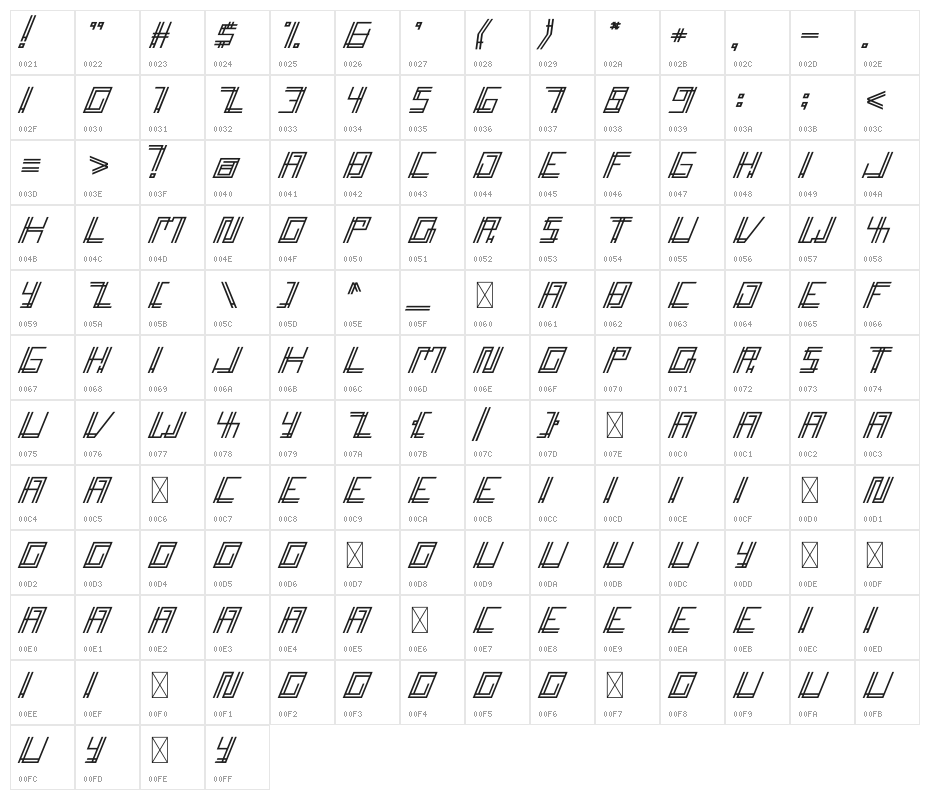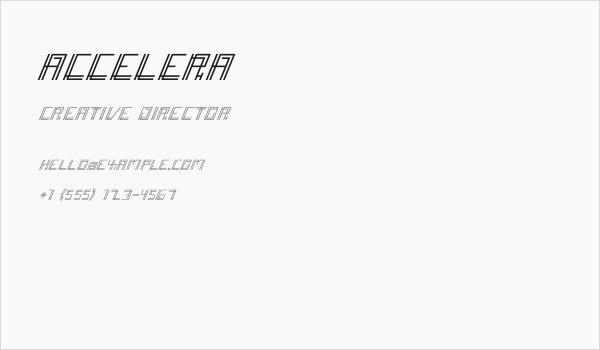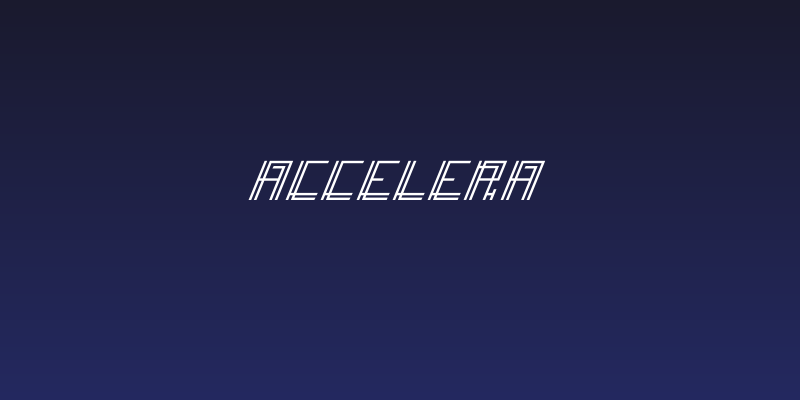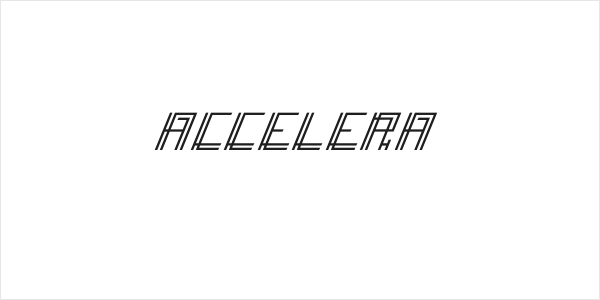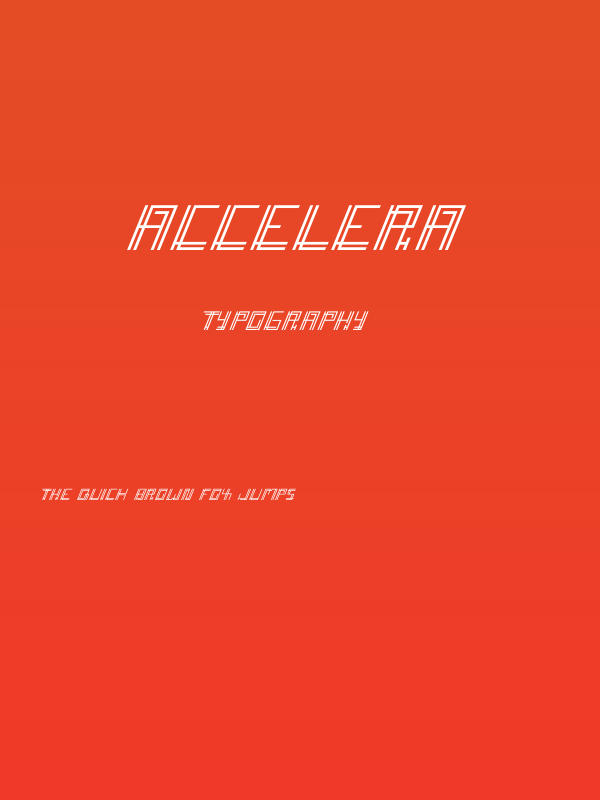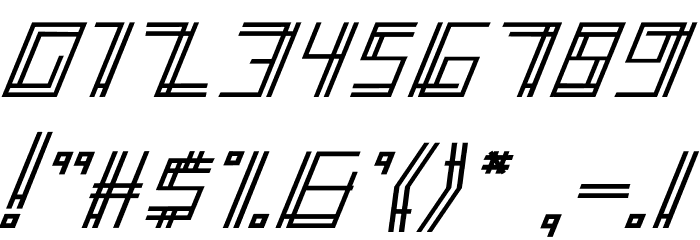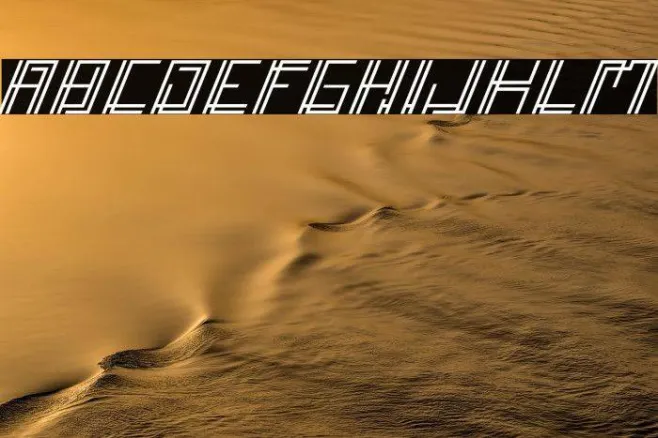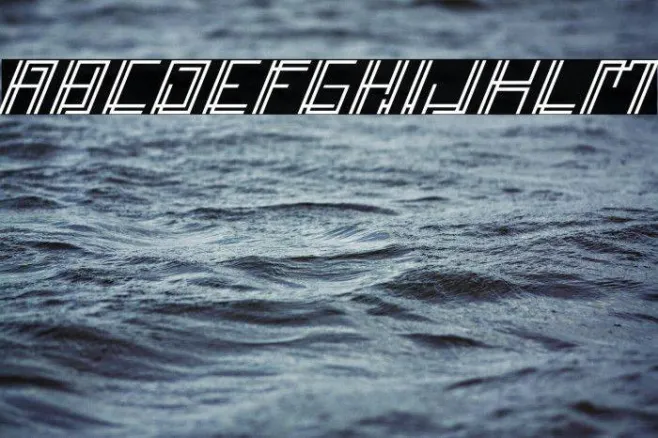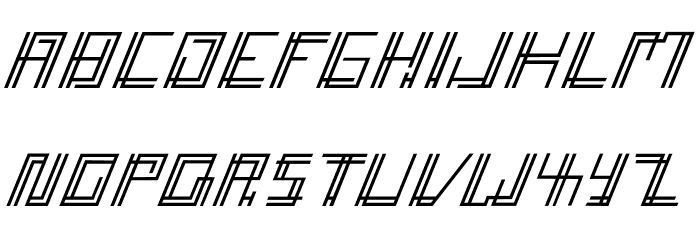
Accelera Font
Accelera Description
This font features a futuristic and dynamic design with angular, geometric shapes. Each character is constructed with parallel lines that create a sense of motion and speed. The uppercase and lowercase letters maintain a consistent style, emphasizing sharp edges and a streamlined appearance. Numbers and special characters follow the same design principles, ensuring uniformity across all glyphs. The font's unique structure makes it stand out, ideal for projects that require a modern and edgy aesthetic.